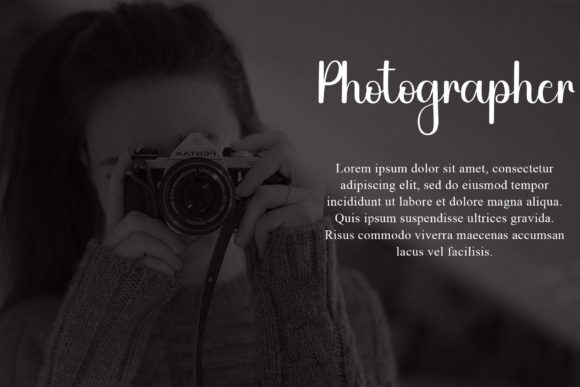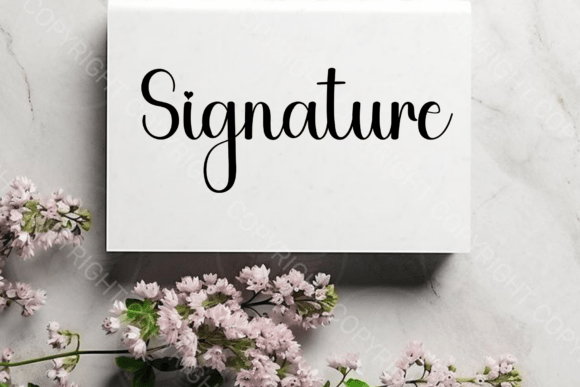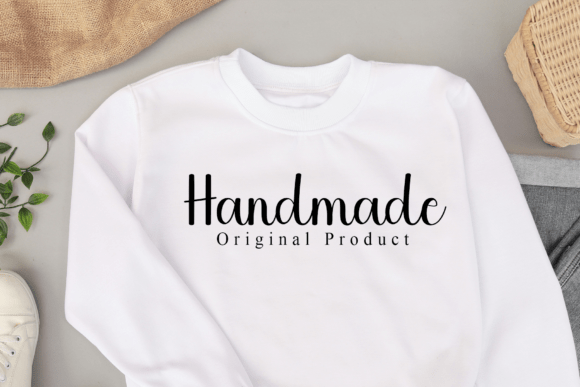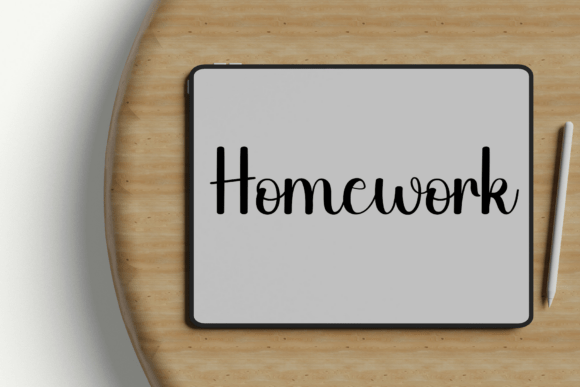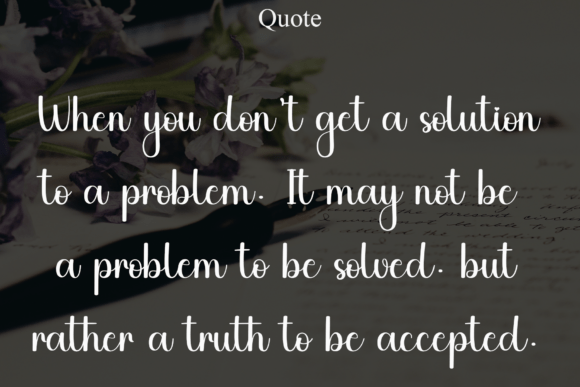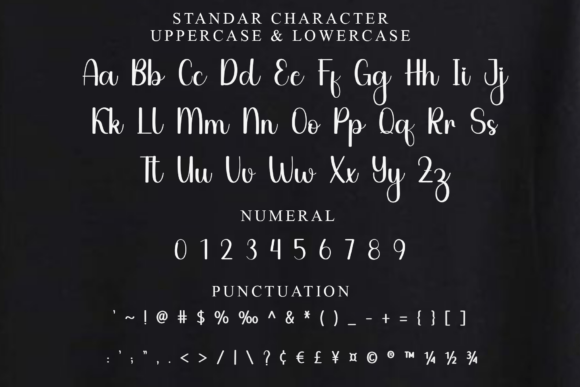
Introducing Alphabet Font: The Perfect Blend of Creativity and Friendliness
Are you tired of using traditional fonts that lack personality and warmth? Look no further than Alphabet Font, a casual and creative typeface that exudes friendliness and approachability. Designed to add a touch of playfulness to your designs, Alphabet Font is perfect for personal projects, invitations, social media graphics, and more.
The Characteristics of Alphabet Font
Alphabet Font boasts round, playful strokes that create a relaxed and casual feel. Its charming, hand-drawn aesthetic adds a fun and unique touch to any design, making it perfect for designers and crafters looking to add a personal touch to their work. The font’s friendly and approachable demeanor makes it ideal for designs that require a warm and inviting tone.
What Makes Alphabet Font Special?
Perfect for Personal Projects and Designs
Alphabet Font is perfect for personal projects, such as creating invitations, greeting cards, and social media graphics. Its friendly and approachable tone makes it ideal for designs that require a warm and inviting feel. Whether you’re a designer, crafter, or simply a DIY enthusiast, Alphabet Font is sure to become a go-to font in your collection.
Key Features of Alphabet Font
- Casual and creative font with a friendly and approachable tone
- Round, playful strokes create a relaxed and casual feel
- Charming, hand-drawn aesthetic adds a fun and unique touch to any design
Tips for Using Alphabet Font in Your Designs
Here are a few tips for using Alphabet Font in your designs:
- Use Alphabet Font for headings, titles, and text to add a playful and creative touch
- Pair Alphabet Font with other fonts to create a unique and visually appealing combination
- Use Alphabet Font for personal projects, such as invitations, greeting cards, and social media graphics
Why Designers and Crafters Love Alphabet Font
Designers and crafters love Alphabet Font for its unique blend of creativity and friendliness. The font’s playful and approachable tone makes it perfect for designs that require a warm and inviting feel. Whether you’re creating personal projects or working on client designs, Alphabet Font is sure to become a favorite in your collection.
In conclusion, Alphabet Font is a versatile and creative typeface that is perfect for designers and crafters looking to add a personal touch to their work. With its friendly and approachable tone, charming hand-drawn aesthetic, and standard PUA Encoded glyphs, Alphabet Font is sure to become a go-to font in your collection. So why wait? Download Alphabet Font today and start creating unique and visually appealing designs that showcase your creativity and personality.